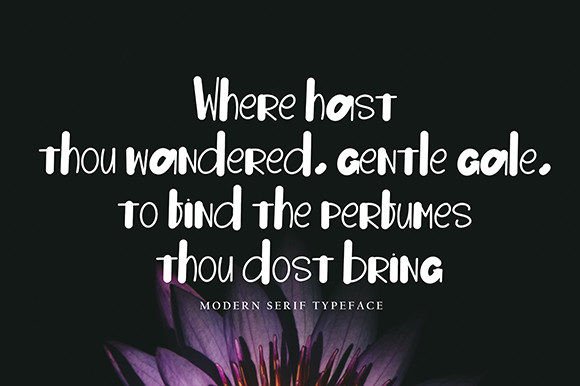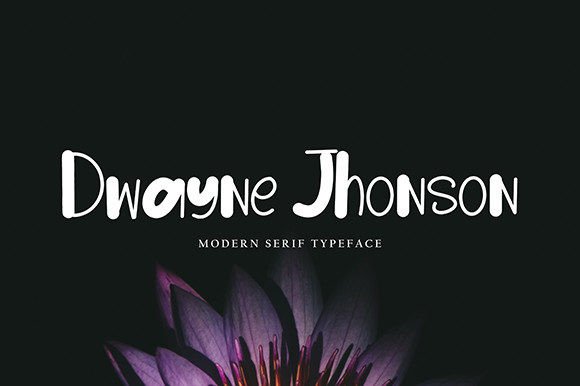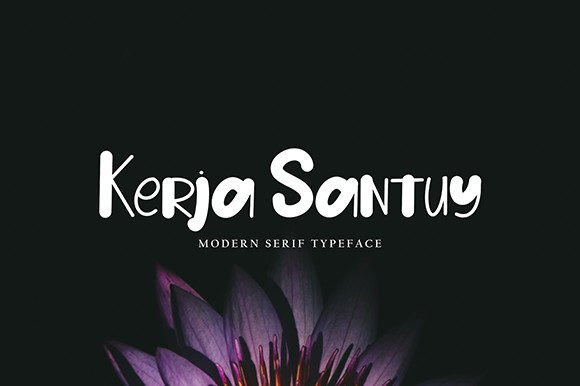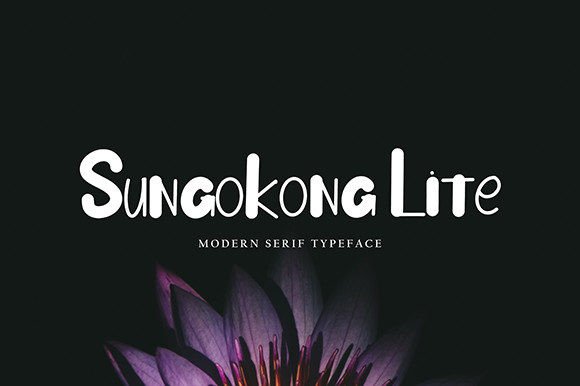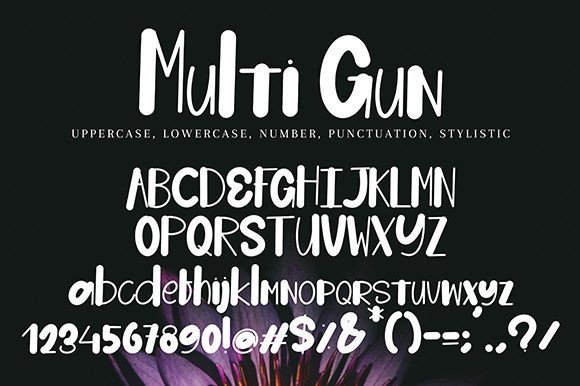
Introduction to Multi Gun Font
Remember that moment when you were working on a creative project and the perfect font eluded you? The one that would elevate your design from good to great? For designers, finding the right font can be a game-changer. That’s where the Multi Gun Font comes in – a cool and casual sans serif font that’s sure to become a true favorite.
With its masterful design, this font has the potential to bring each of your creative ideas to the highest level. Whether you’re working on a free download or a high-quality design resource, Multi Gun Font is the perfect choice. Its versatility and clean lines make it ideal for a wide range of projects, from digital designs to print materials, all with a transparent background.
Key Features of Multi Gun Font
- High-quality font with a unique design that’s perfect for creative projects, including video games, comic books, and graphic novels.
- Includes a range of characters, including uppercase and lowercase letters, numbers, and special characters, making it a versatile design resource.
- Perfect for designers, artists, and developers working on creative projects who need a unique and high-quality font.
Honest Review: Multi Gun Font
As a designer, I’m always on the lookout for unique and high-quality design resources to elevate my creative projects. Recently, I stumbled upon the Multi Gun Font, and I’m excited to share my honest review with you.
What works well: ✨ The Multi Gun Font is incredibly versatile and can be used for a wide range of creative projects, from gaming to sports branding. The font is also available for free download, which is a major plus for designers on a budget. The high-quality design and transparent background make it easy to use in various design applications.
- Perfect for gaming, sports, and other creative projects
What doesn’t work so well: ⚠️ The Multi Gun Font is a bit limited in terms of its customization options, which might be a drawback for designers who want more control over their font’s appearance.
Overall impression: I’m impressed with the Multi Gun Font, and I think it’s a great addition to any designer’s toolkit. While it may have some limitations, its versatility and high-quality design make it a valuable resource for creative projects.
Tips for Getting the Most Out of Multi Gun Font
Use Multi Gun Font in bold and italic styles to add emphasis to your text. Experiment with different font sizes and colors to create visual hierarchy and balance in your design.
Common Use Cases for Multi Gun Font
Multi Gun Font is ideal for creating logos, graphics, and typography for gaming and sci-fi themed projects. It’s also great for adding a futuristic touch to your designs.